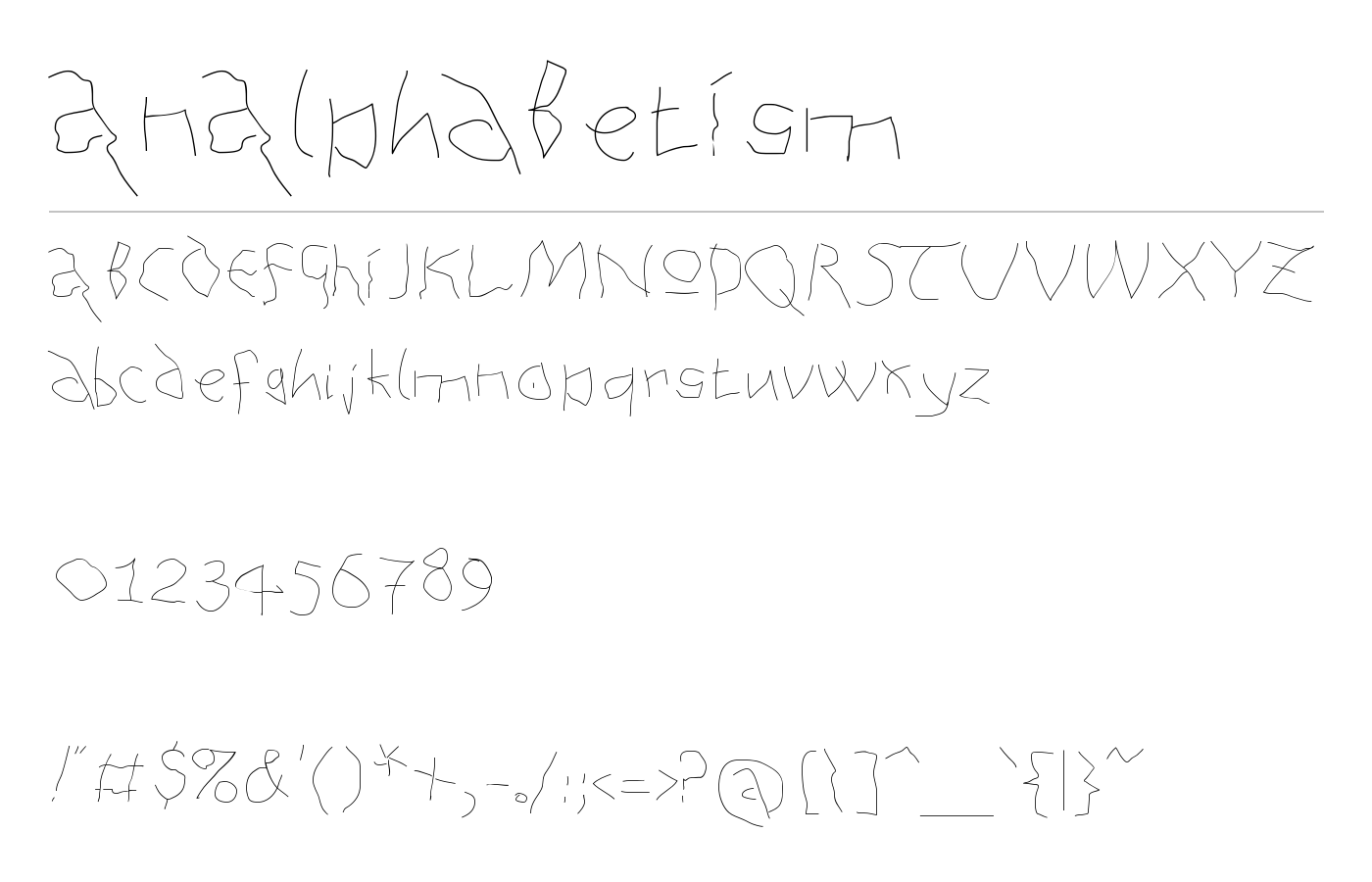
AnAlphaBetIsm is a delicate, highly irregular handwritten font characterized by its extremely thin, wavering lines and quirky, almost abstract letterforms. Its light and airy appearance gives it a whimsical, artistic feel, making it ideal for creative projects that seek an organic, playful touch rather than traditional readability or formality. This font works best in experimental designs, expressive logos, or artistic posters where uniqueness and personality take center stage.
AnAlphaBetIsm Font
About AnAlphaBetIsm Font